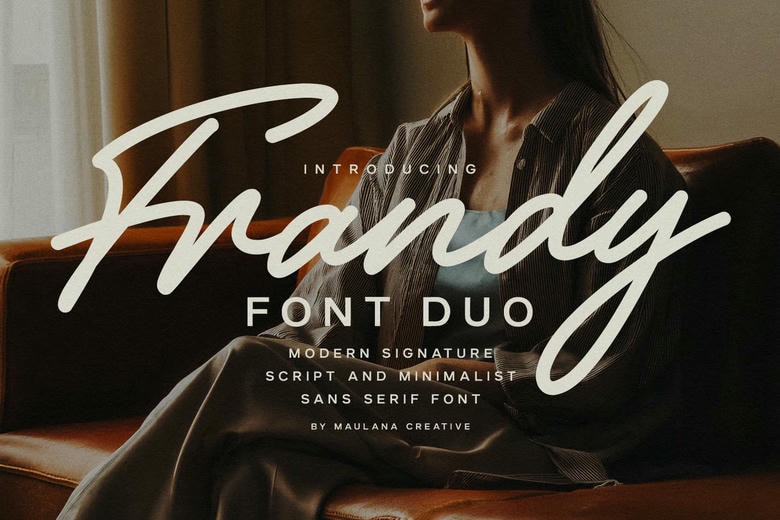
Frandy Font Duo
Frandy is a modern font duo that pairs an expressive signature script with a clean, minimalist sans-serif. The script brings an elegant handwritten touch with subtle ligatures and natural strokes. The geometric sans-serif creates strong contrast and is easy to read.